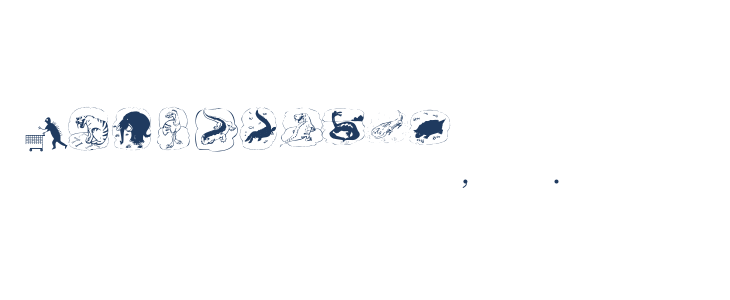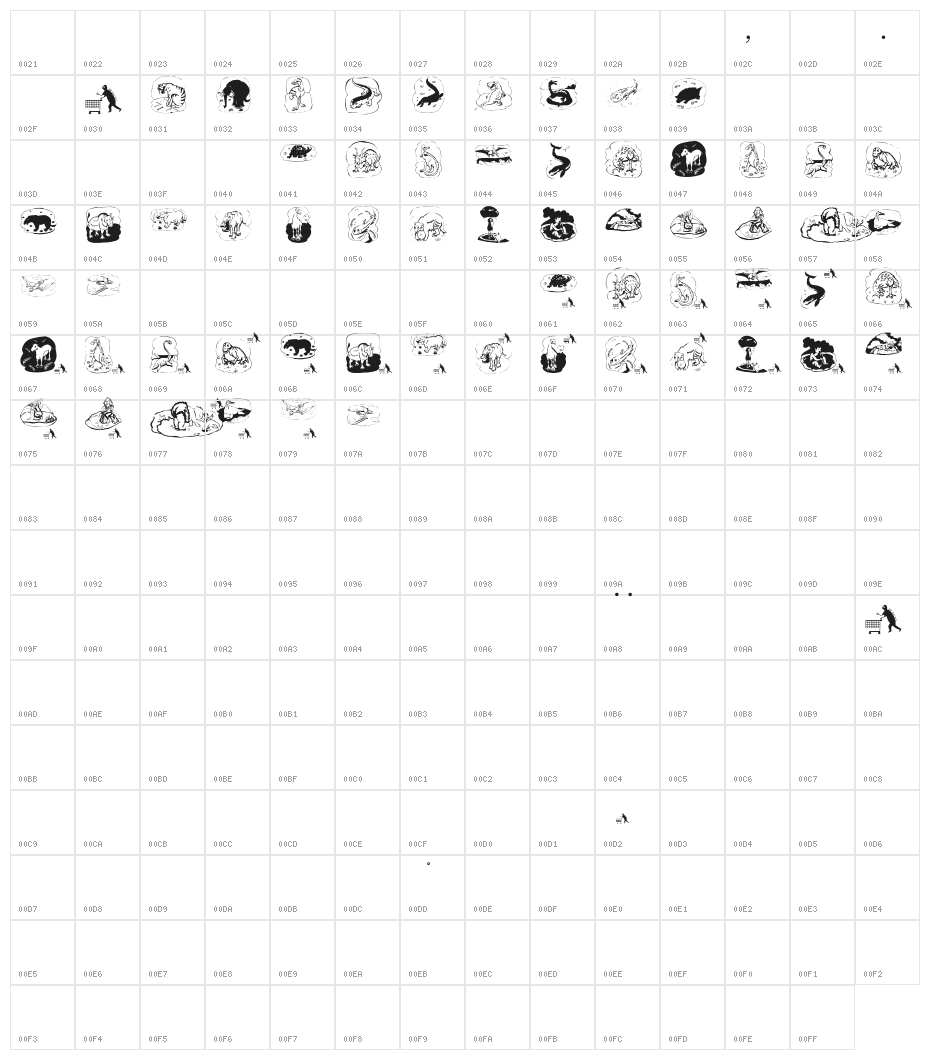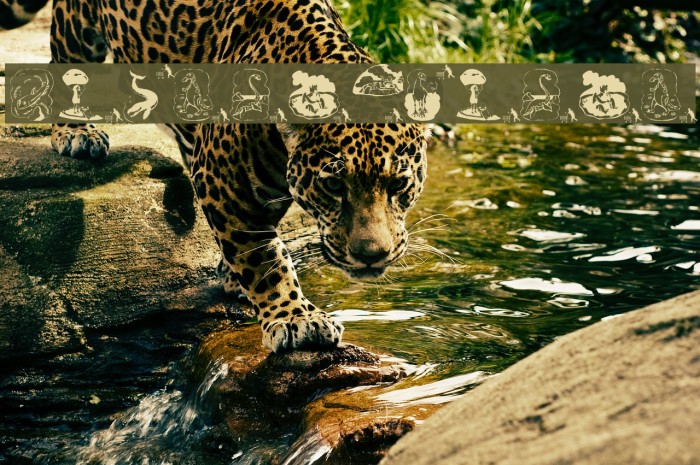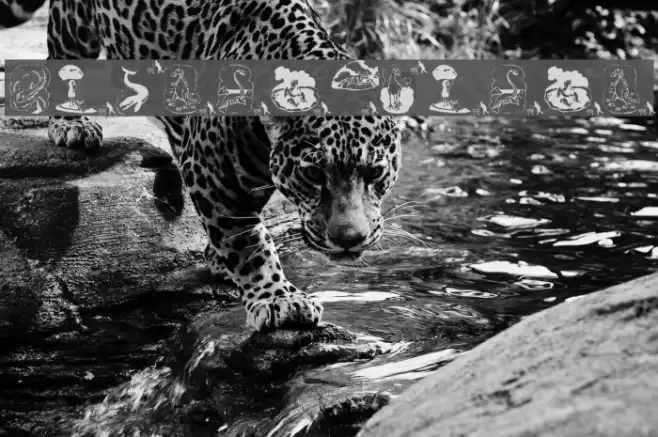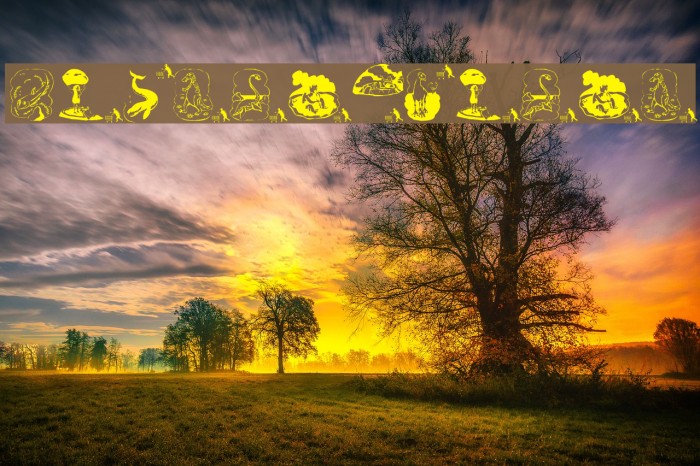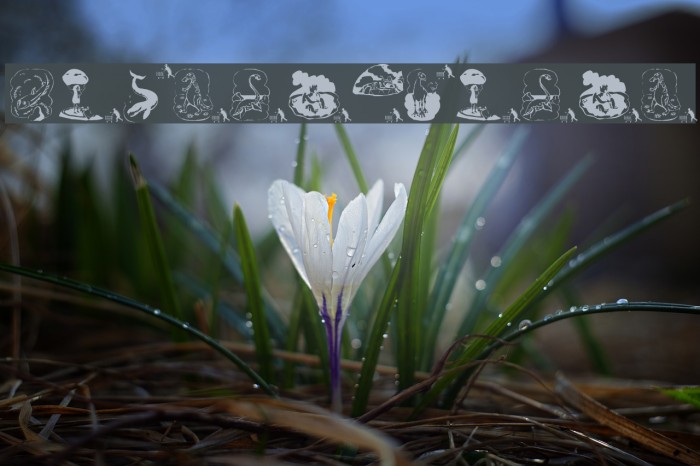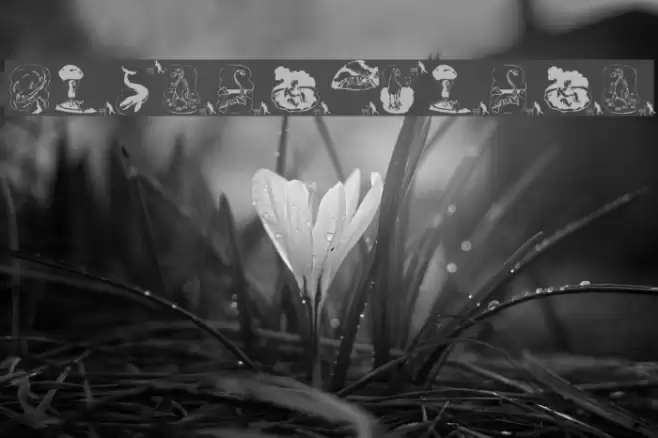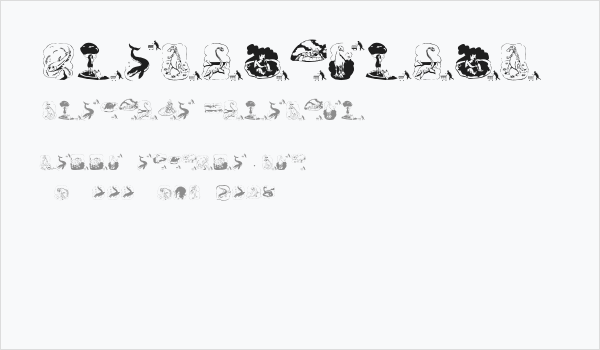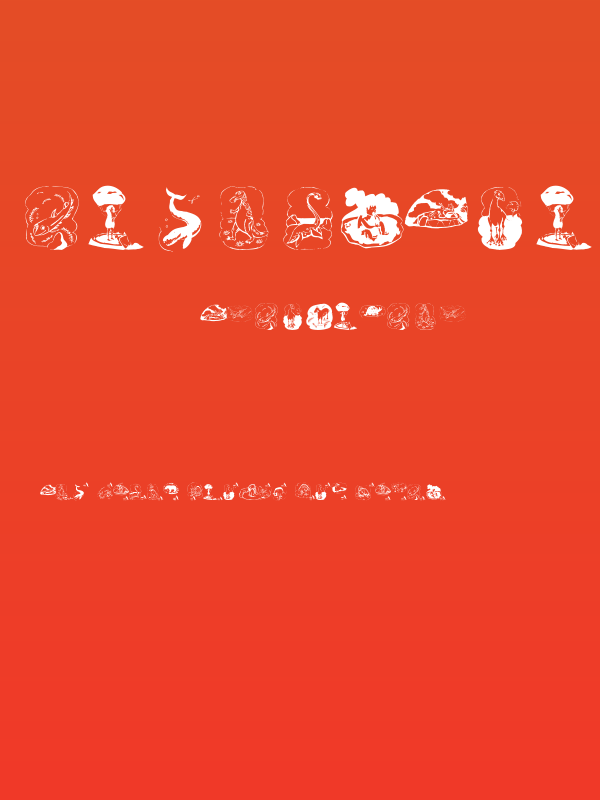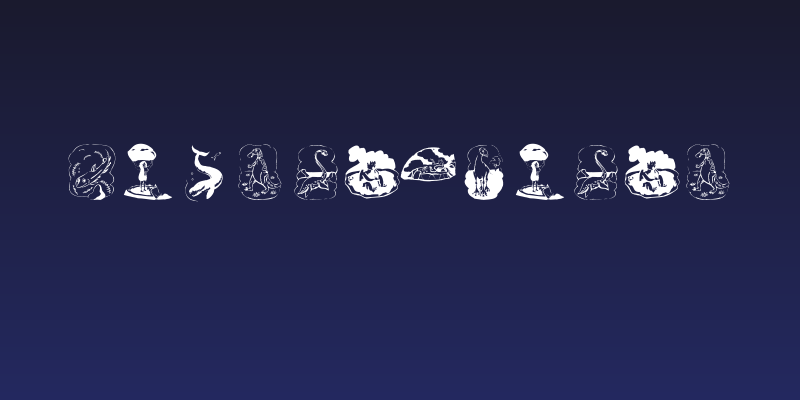
Prehistorish Font
Prehistorish Description
This font is a whimsical and playful collection of prehistoric-themed illustrations. Each character is represented by a unique drawing, featuring dinosaurs, cavemen, and other ancient creatures in various humorous and imaginative scenarios. The style is cartoonish and detailed, with a hand-drawn quality that adds charm and personality. The illustrations are enclosed in irregular shapes, giving them a dynamic and lively appearance. This font is not suitable for traditional text but serves as a creative tool for adding a prehistoric flair to designs.
Use CaseLogos, Illustrations, Themed Designs
Proposed ProjectsIdeal for children's books, educational materials, themed party invitations, and creative design projects that require a fun and imaginative touch.